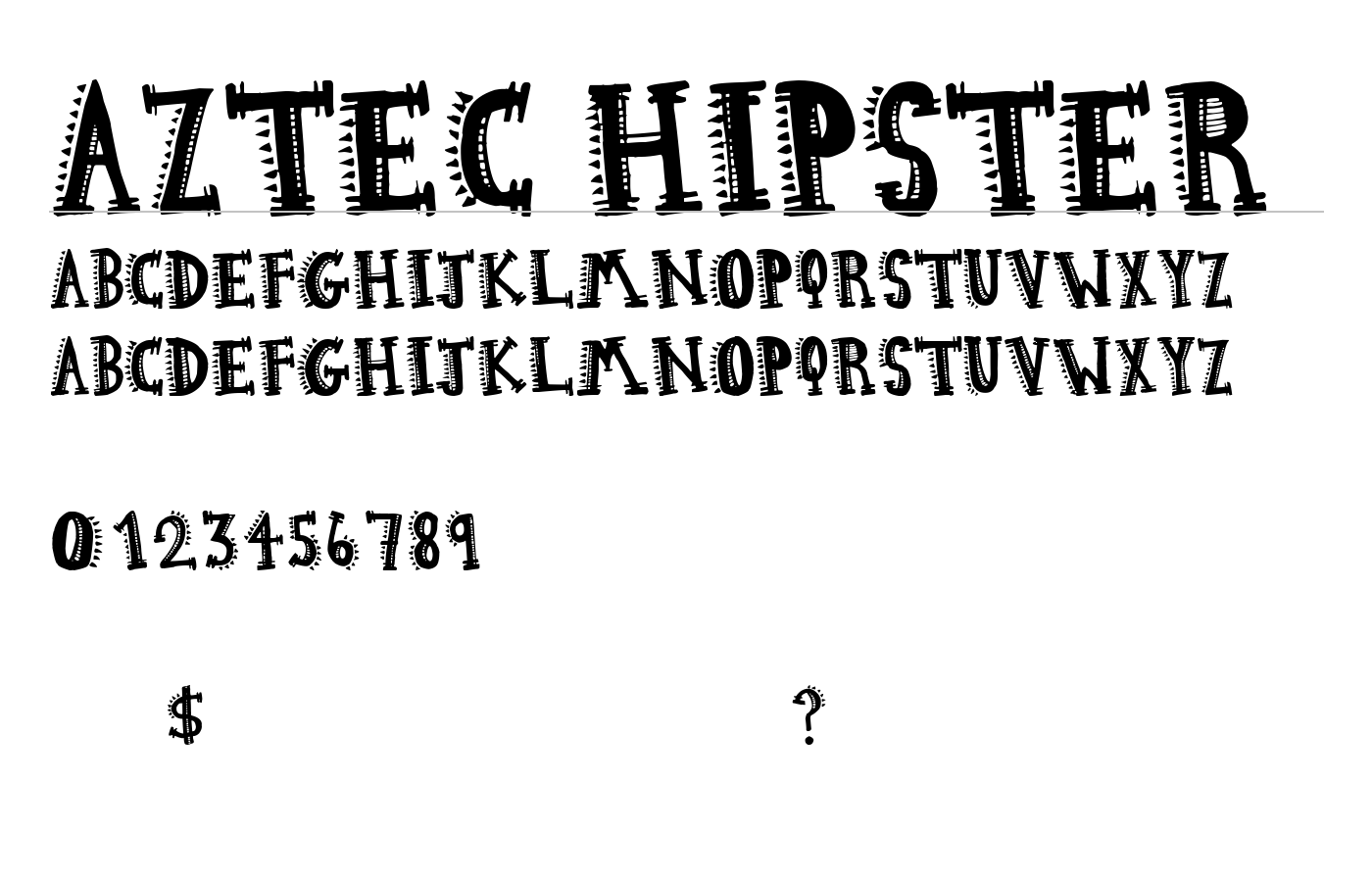
Aztec Hipster is a decorative serif font with a bold, playful style inspired by traditional Aztec patterns. It features uneven, hand-drawn strokes with eye-catching triangular details along the letter edges, giving it a unique, quirky personality. This font works well for creative projects, posters, and branding that want to convey an adventurous, vintage yet trendy vibe.
Aztec Hipster Font